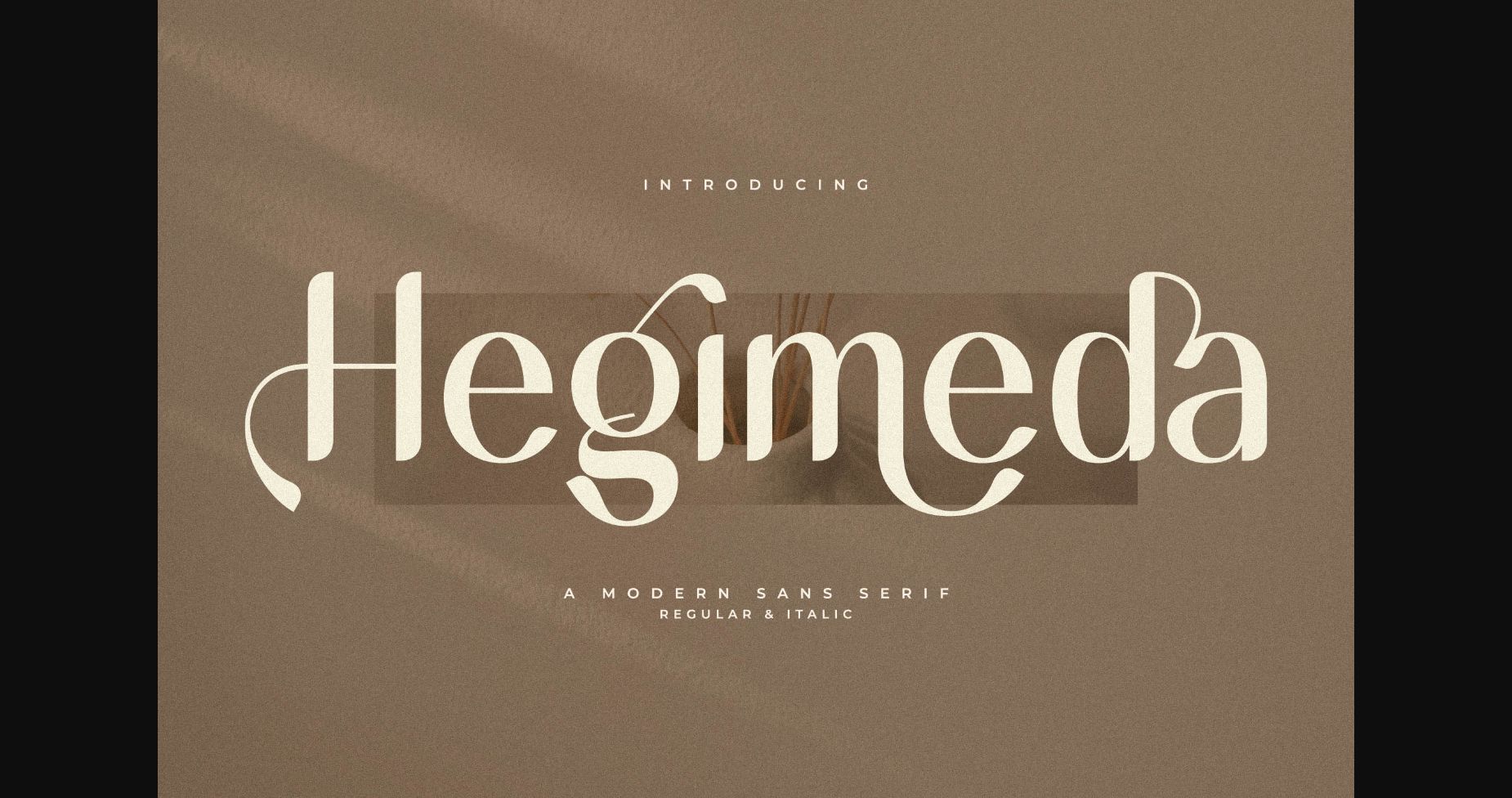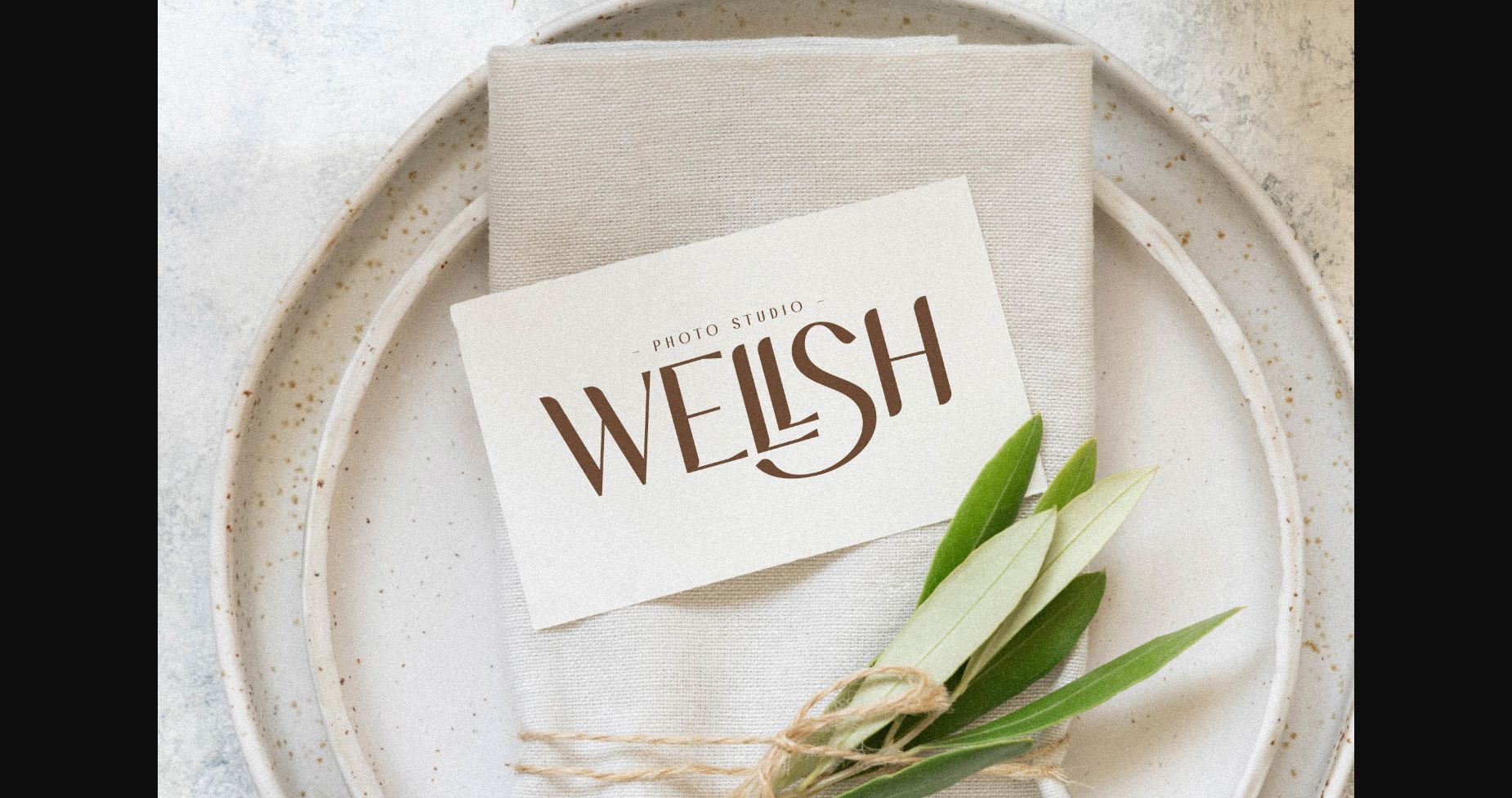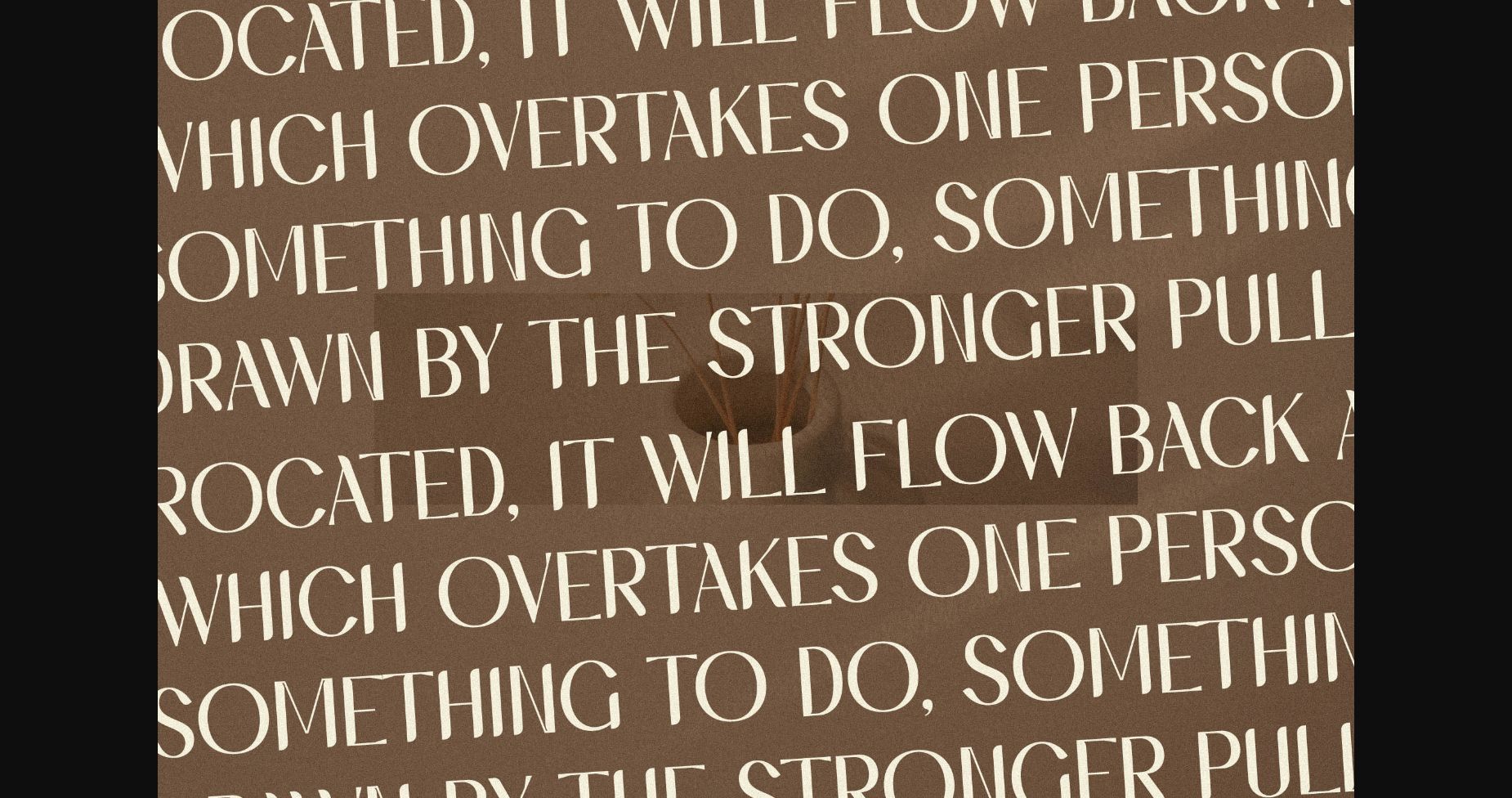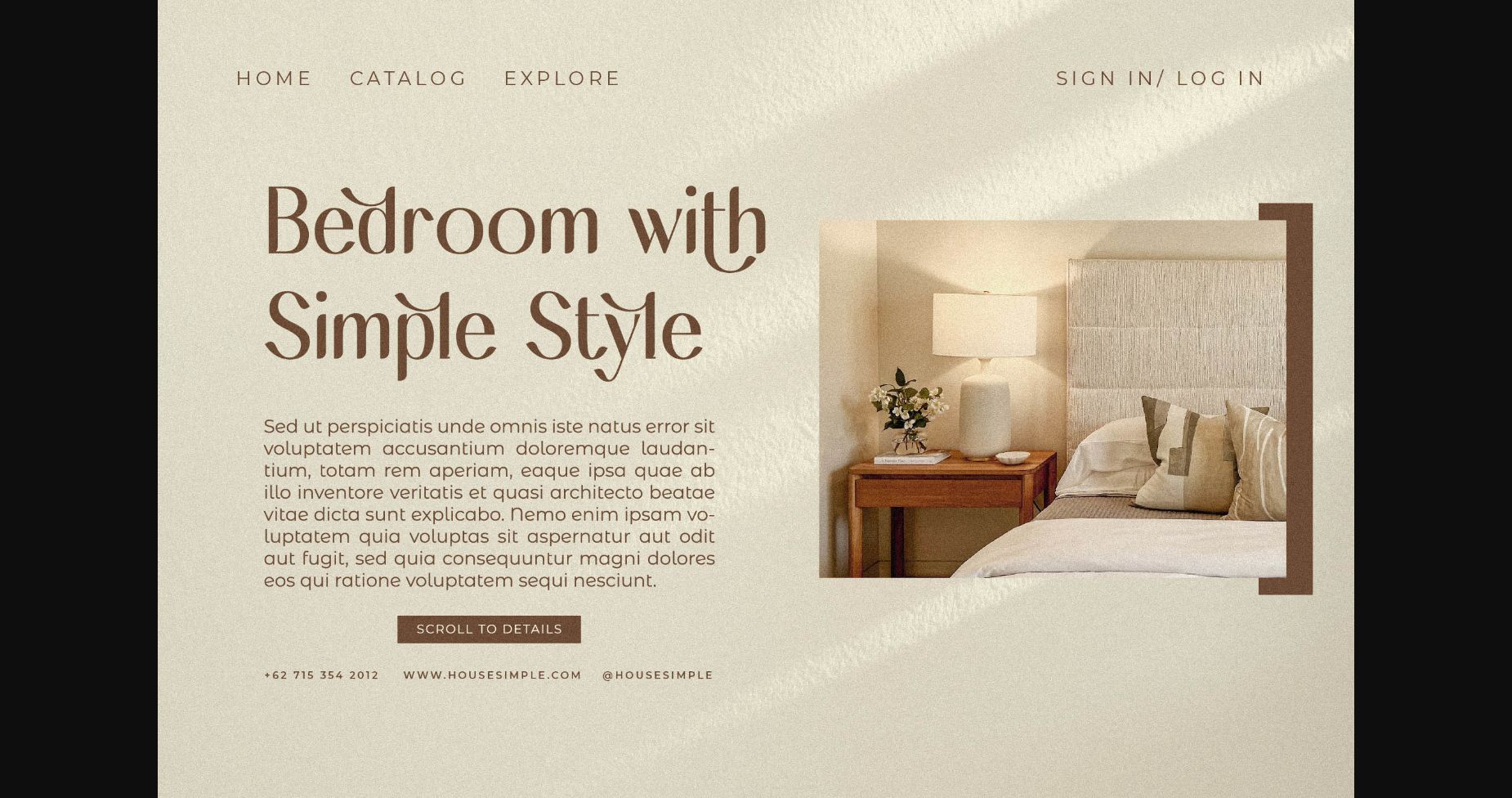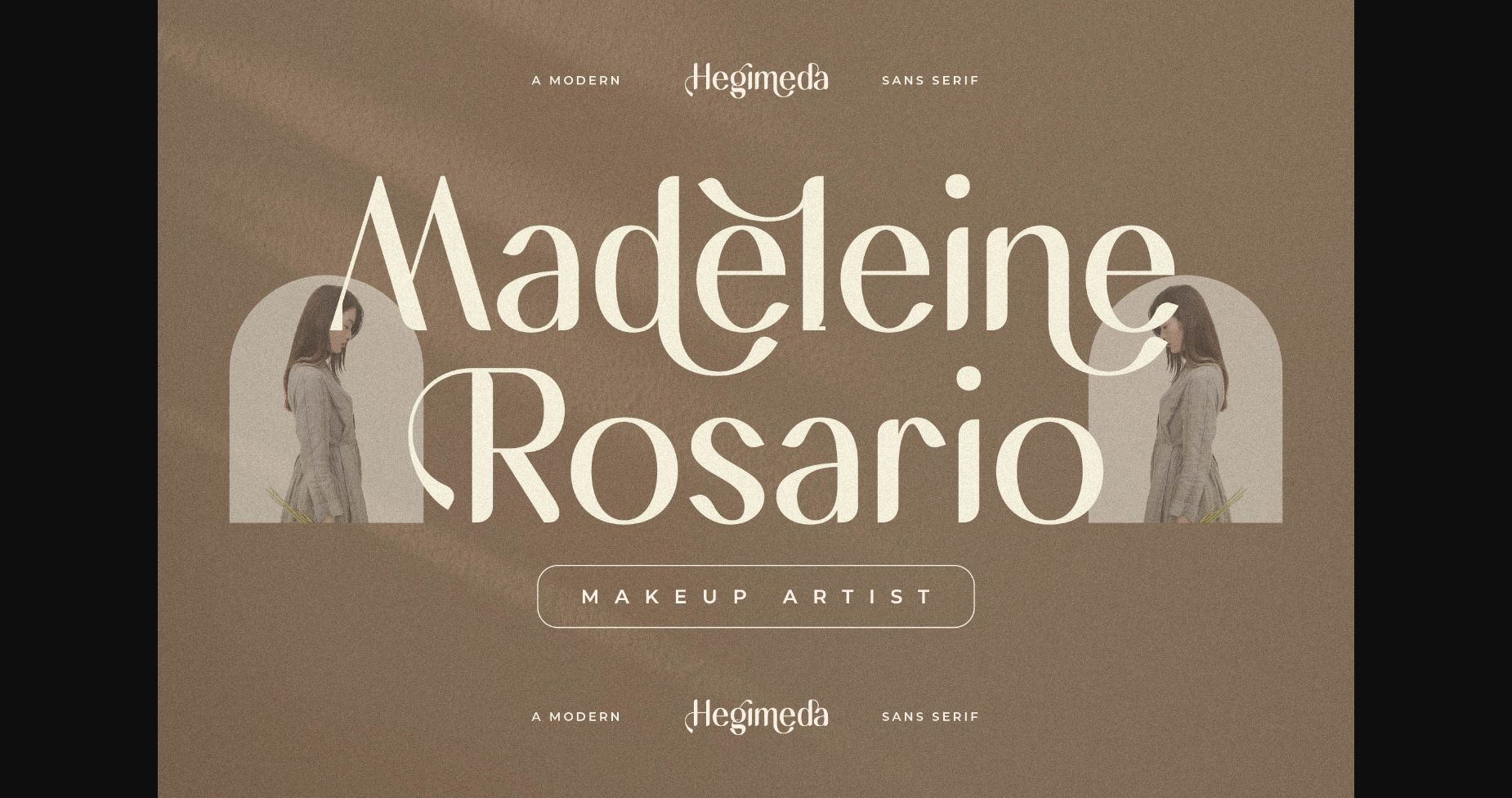
About Hegimeda Font
Hegimeda is a modern and stylish sans serif font that has its own unique appearance. This typeface is perfect for an elegant and luxurious logo, fashion brands, magazines, apparel, lettering, quotes, and so much more.